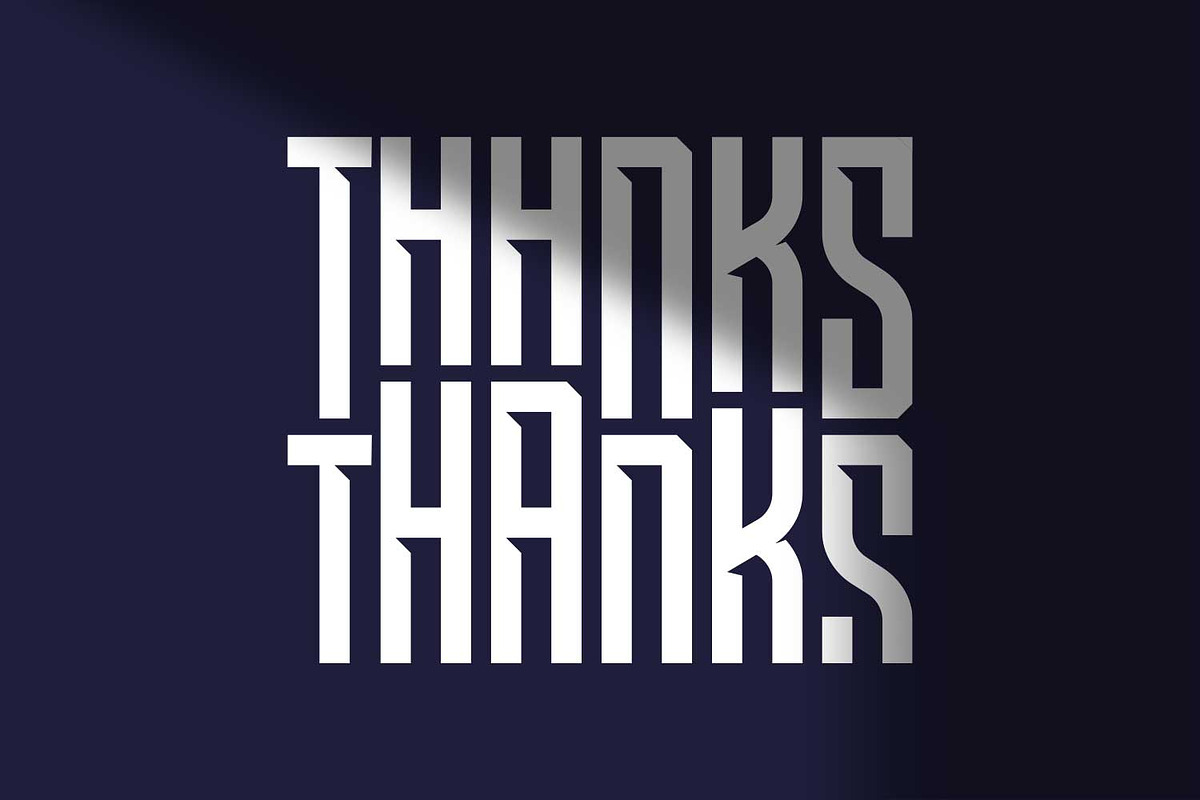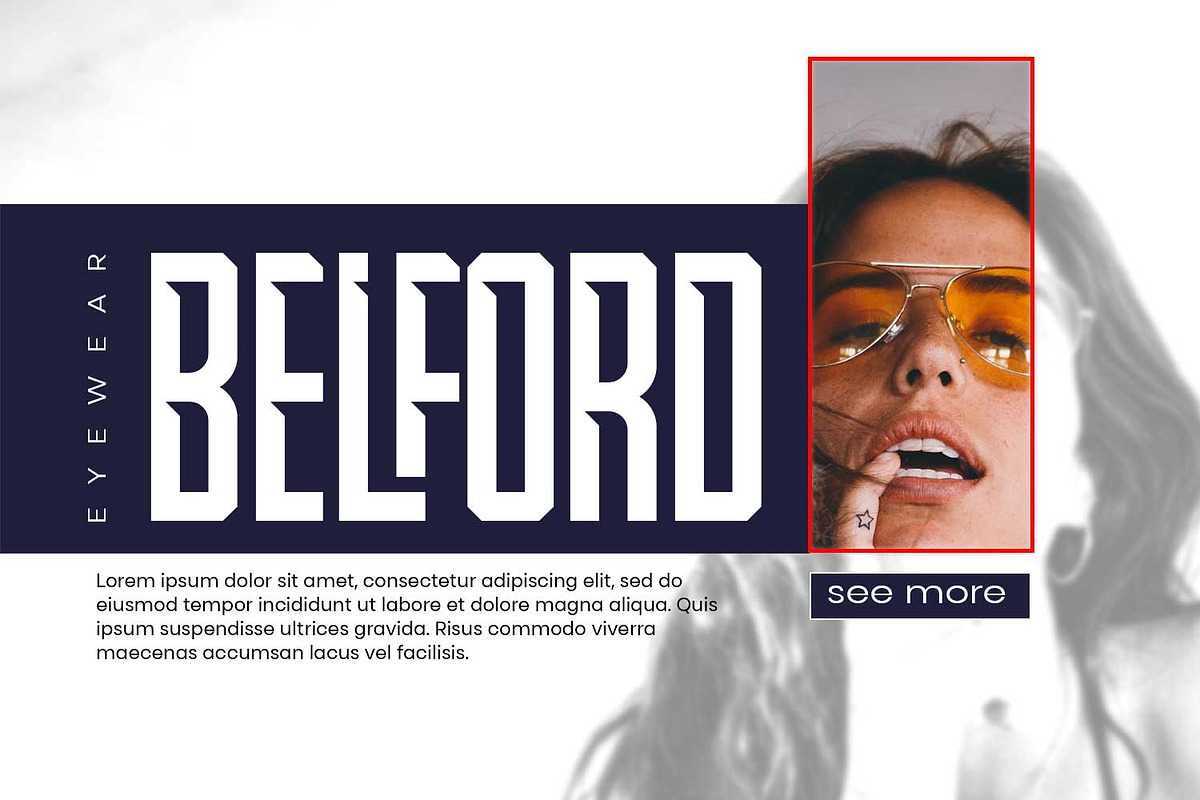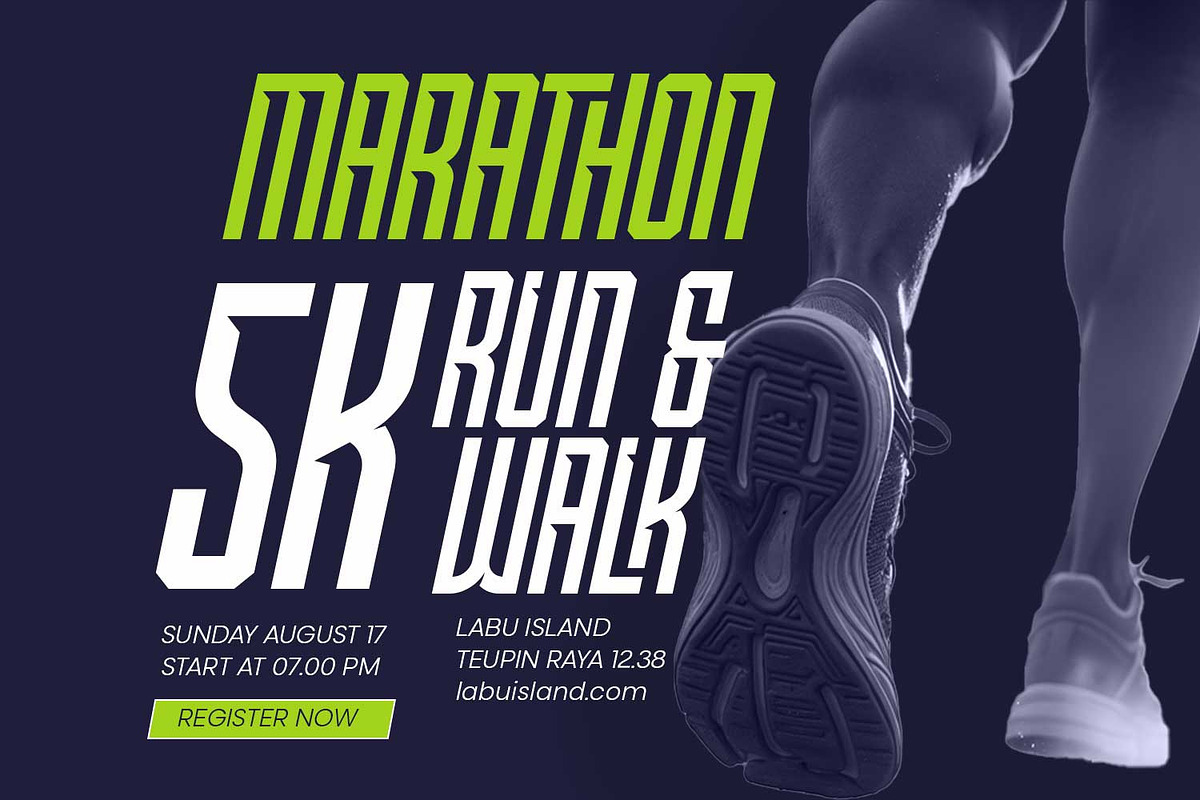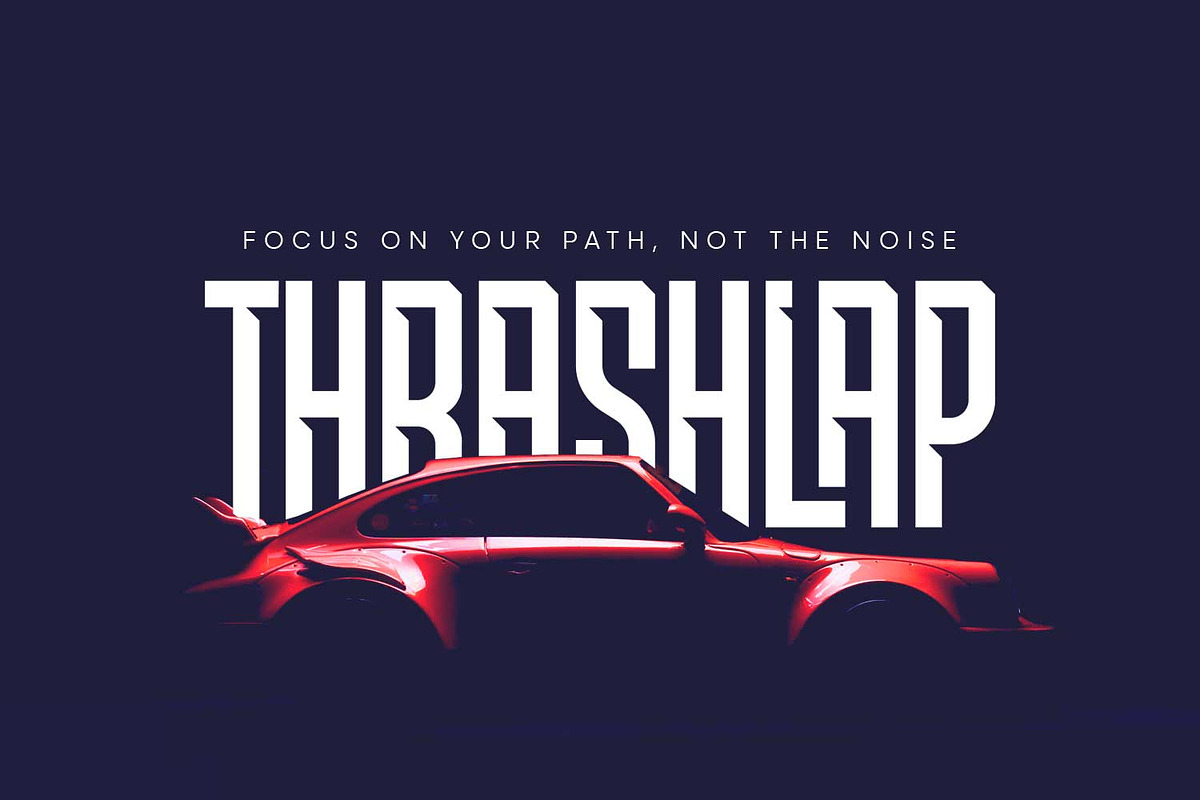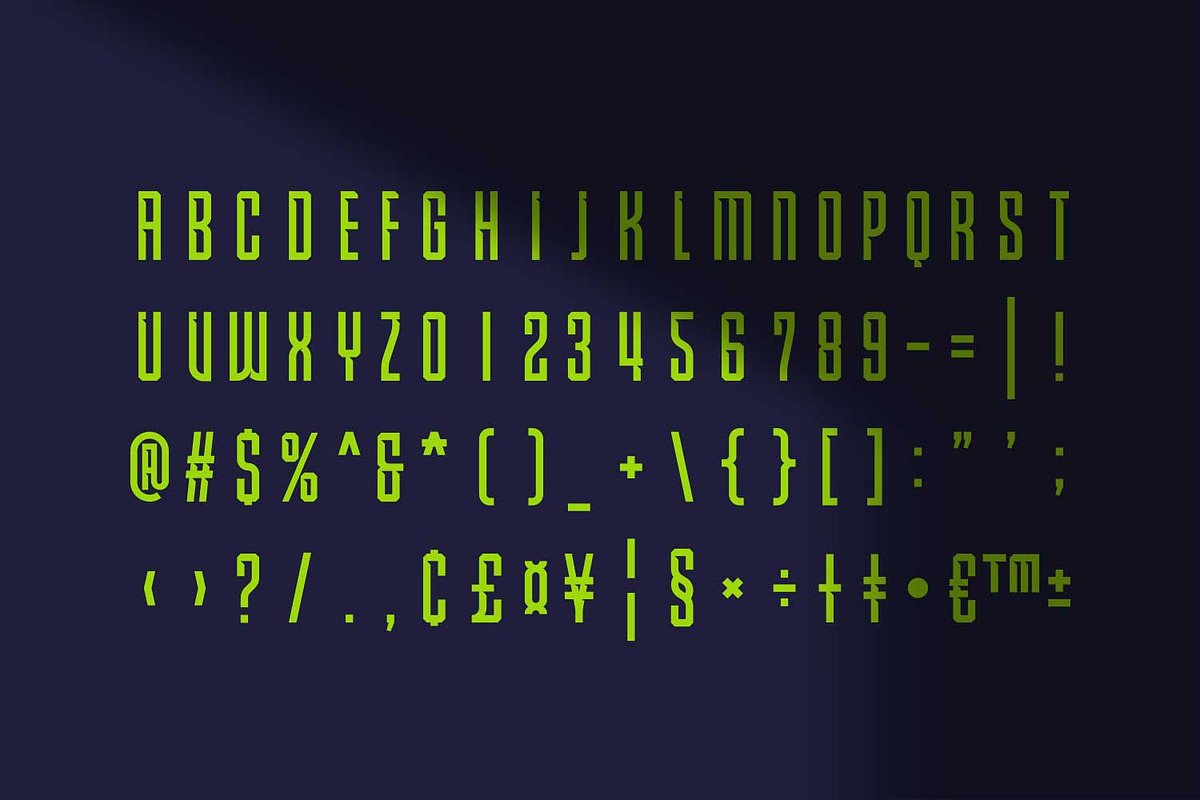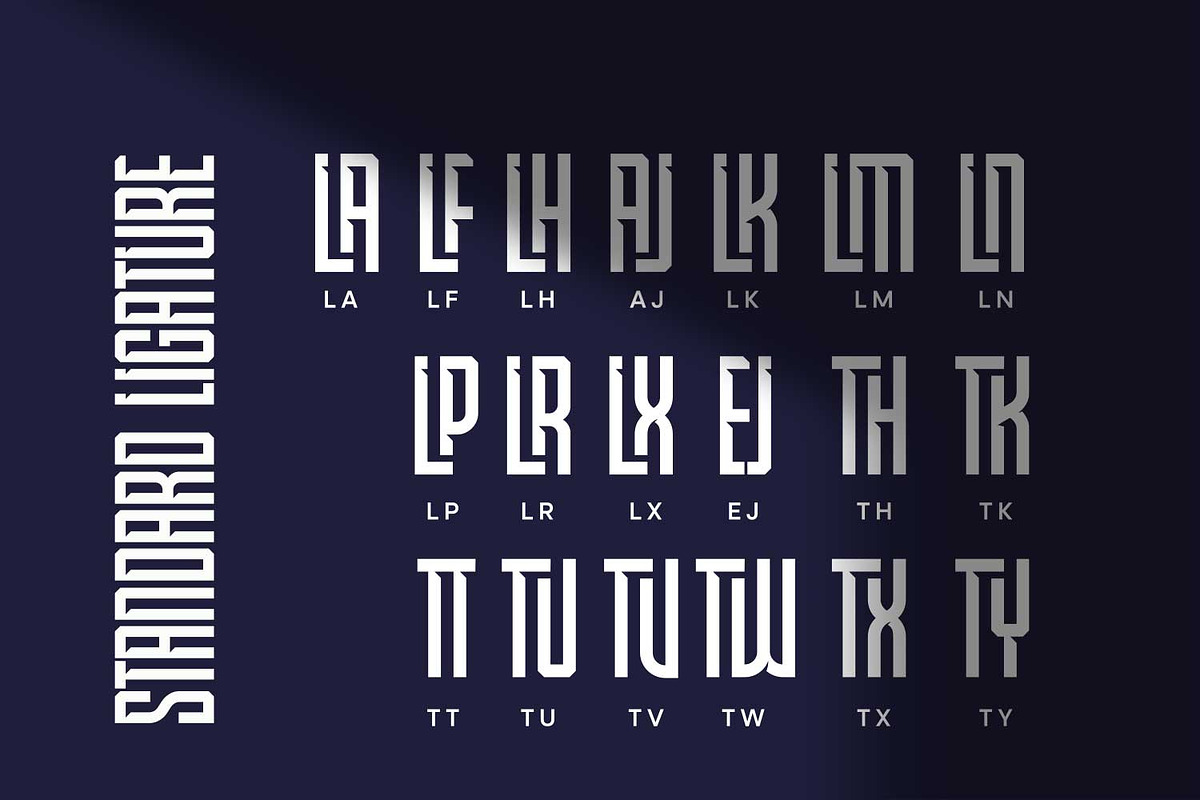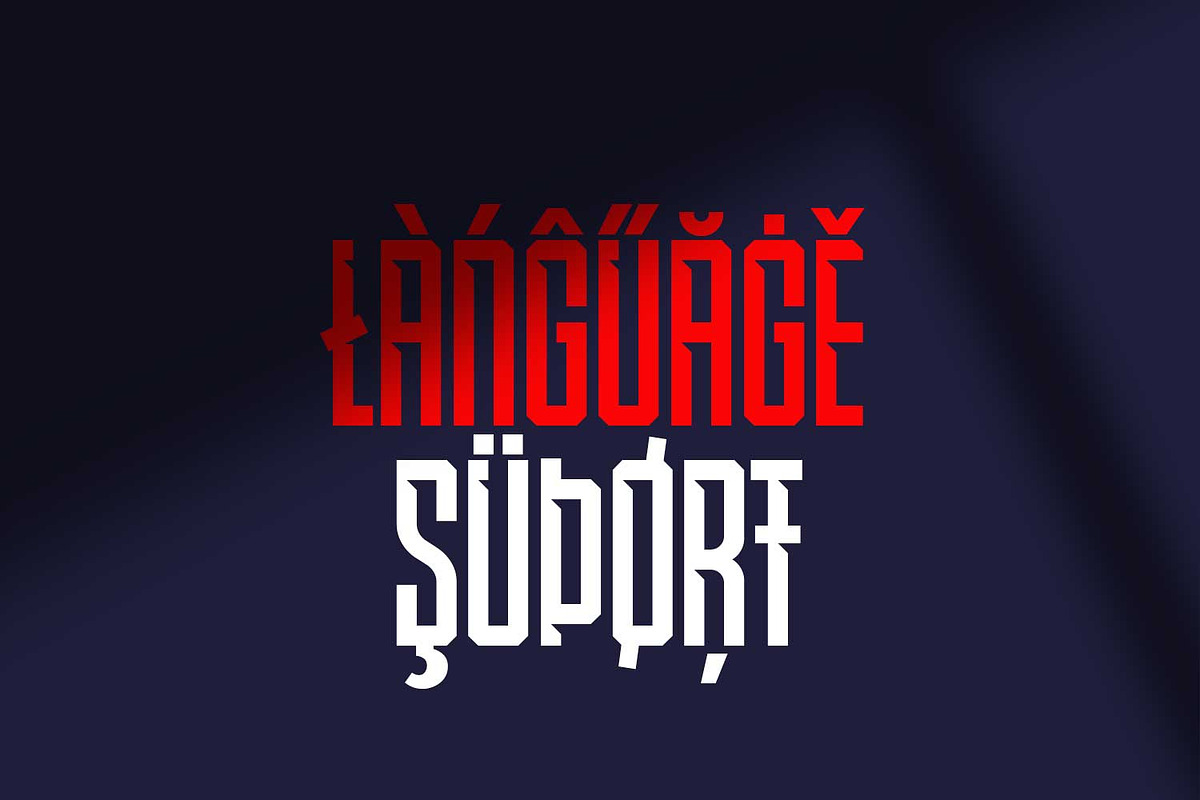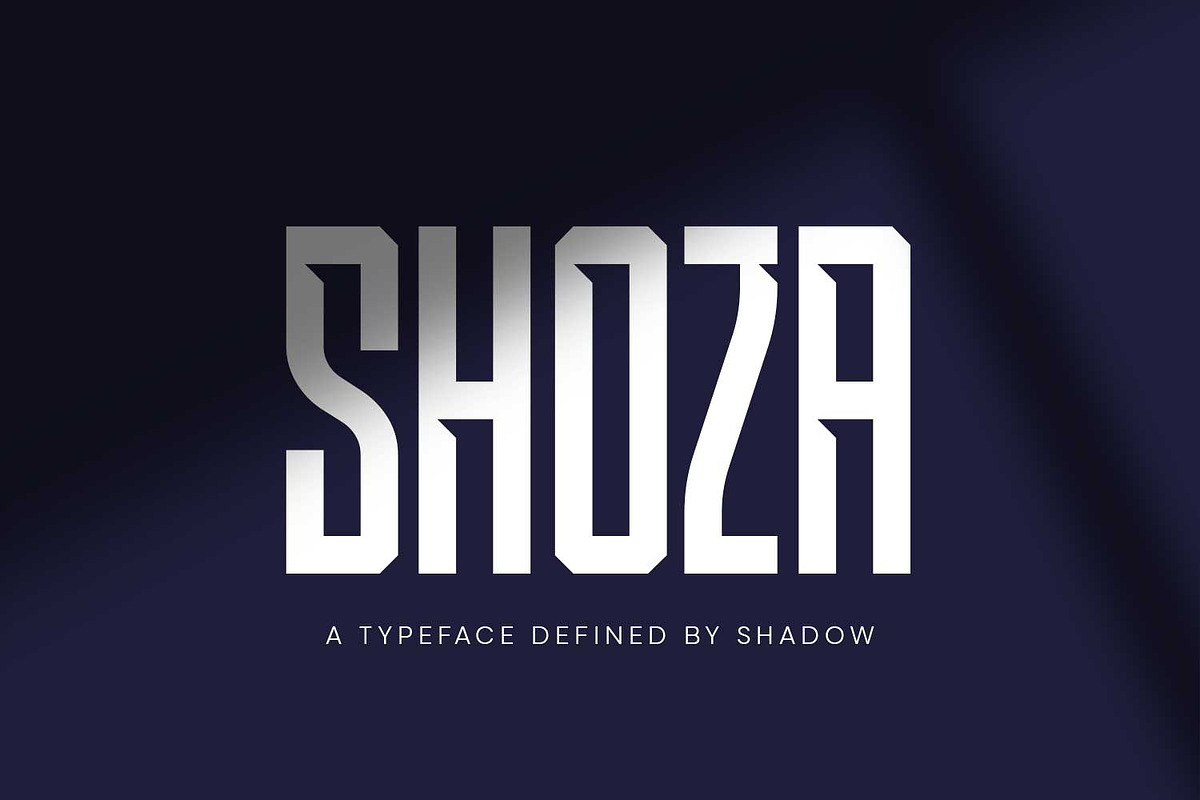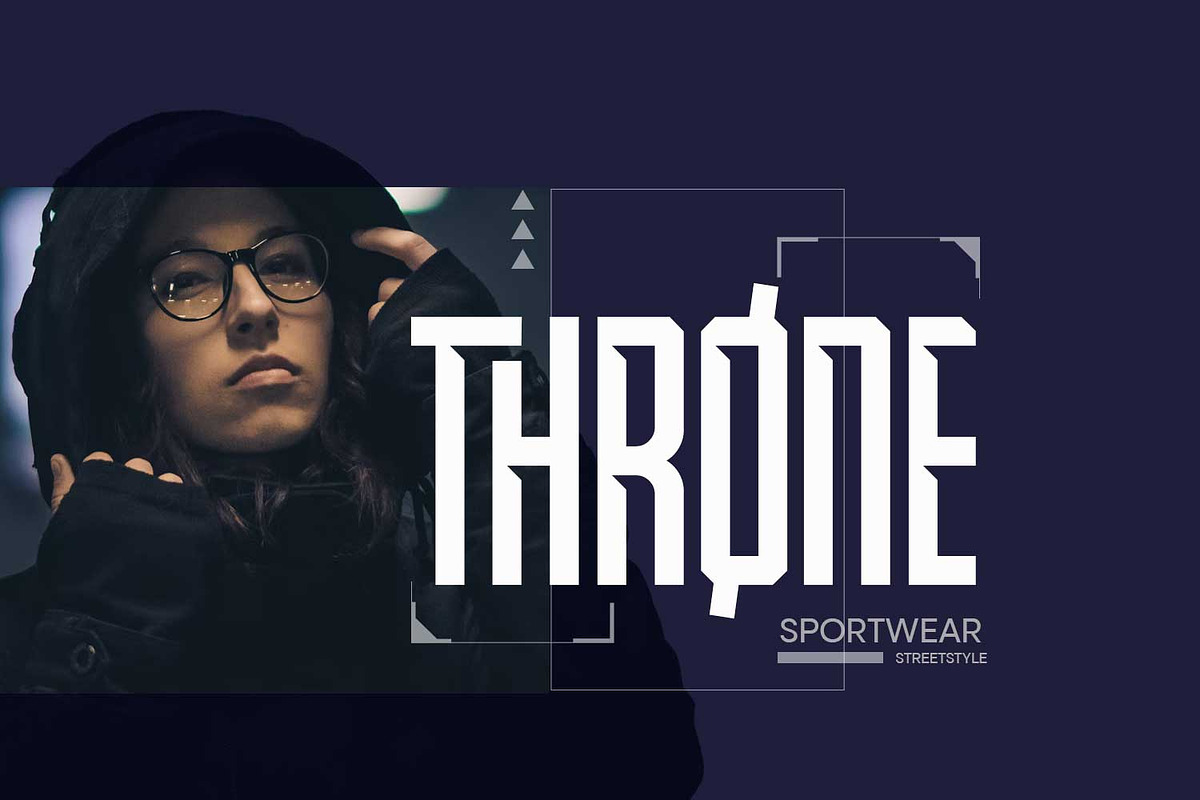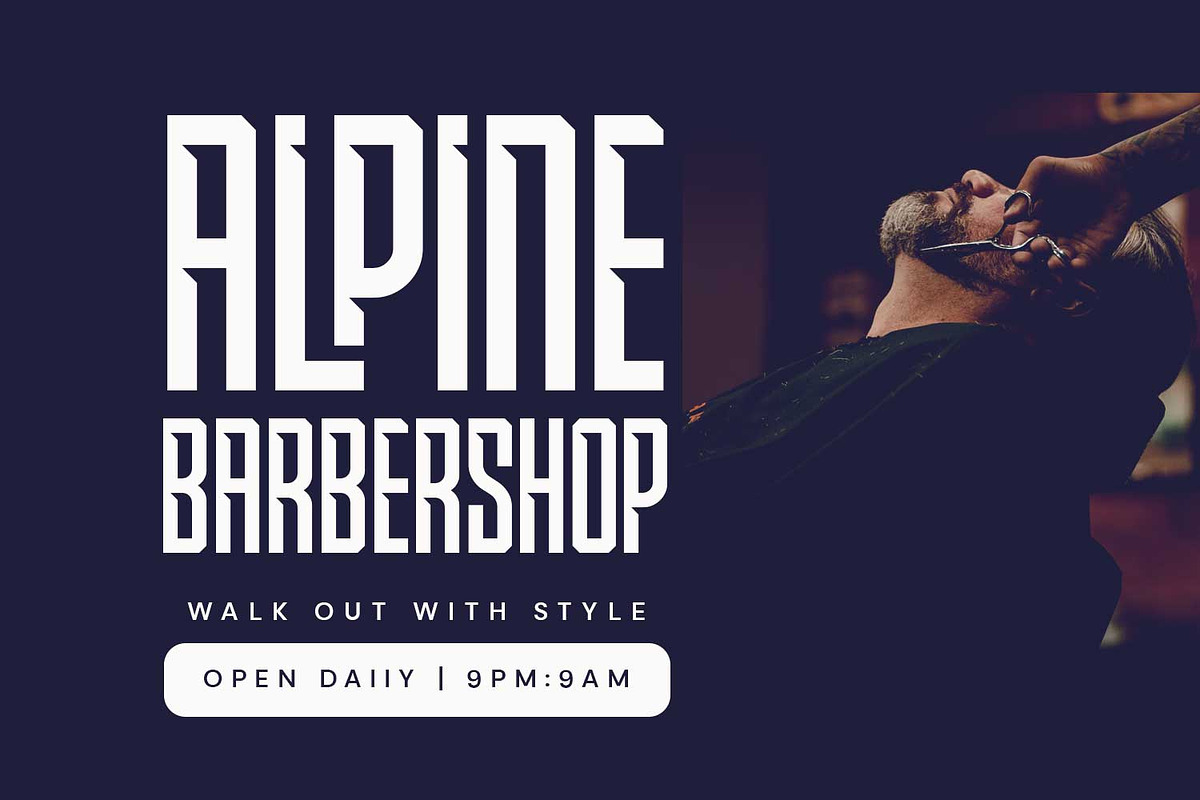
Shoza
Shoza is a bold, futuristic display font with dramatic shadow-inspired cuts. Designed in an all-caps style where uppercase and lowercase share the same form, Shoza invites you to explore creative ligature combinations for a distinctive visual flow. Its tall, condensed structure delivers a commanding presence, making it a strong choice for brand identities, logos, esports visuals, automotive graphics, and even the energetic vibe of running or marathon events. With crafted ligatures, multilingual support, and sharp angular details, Shoza excels in large-scale applications and turns every word into a statement.